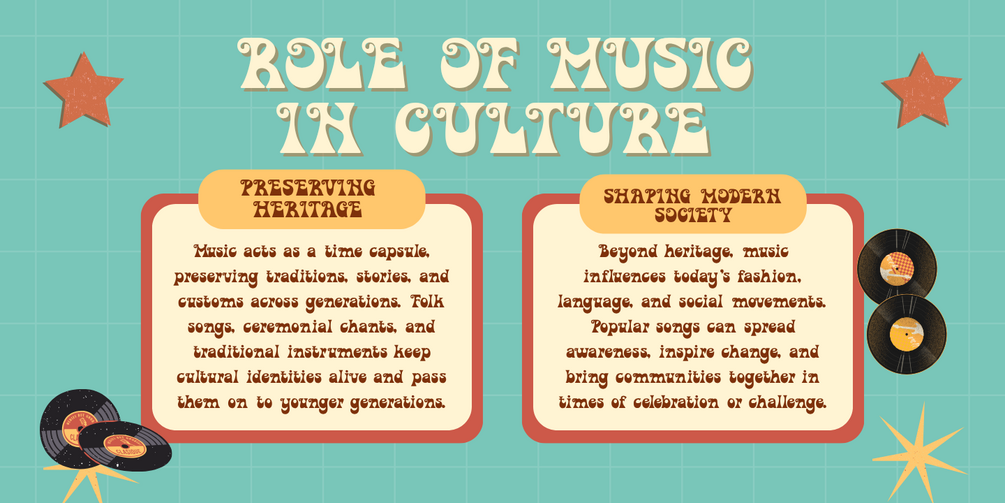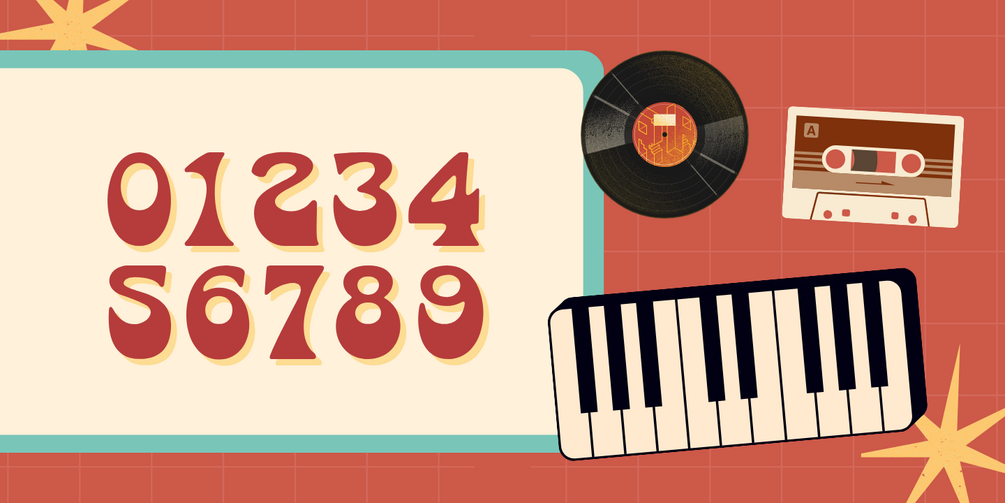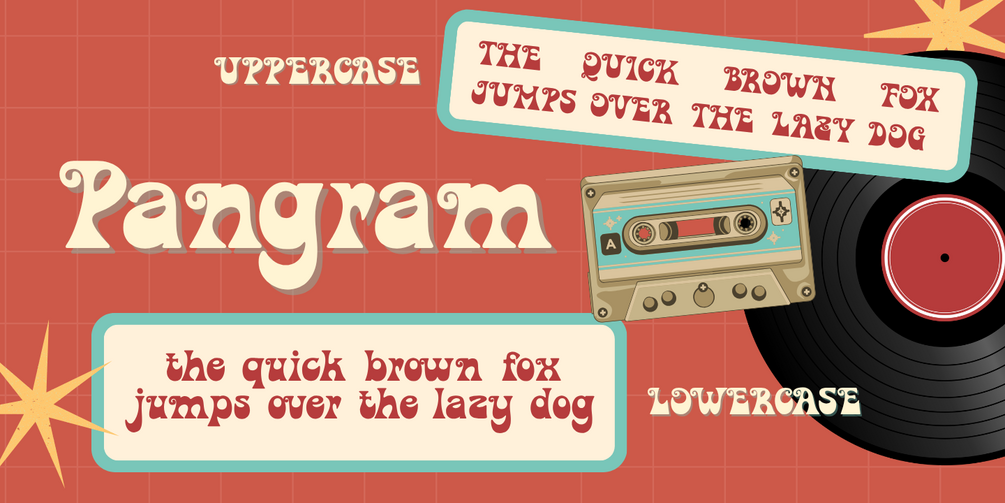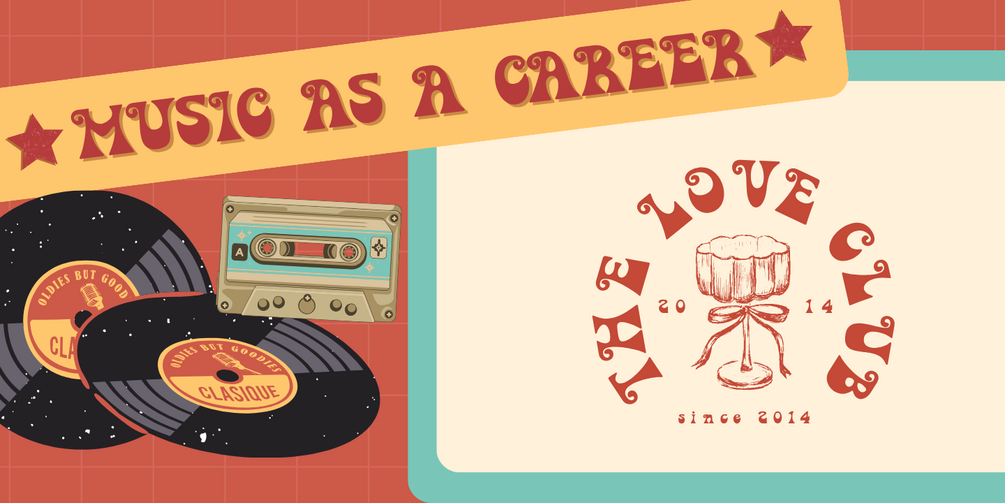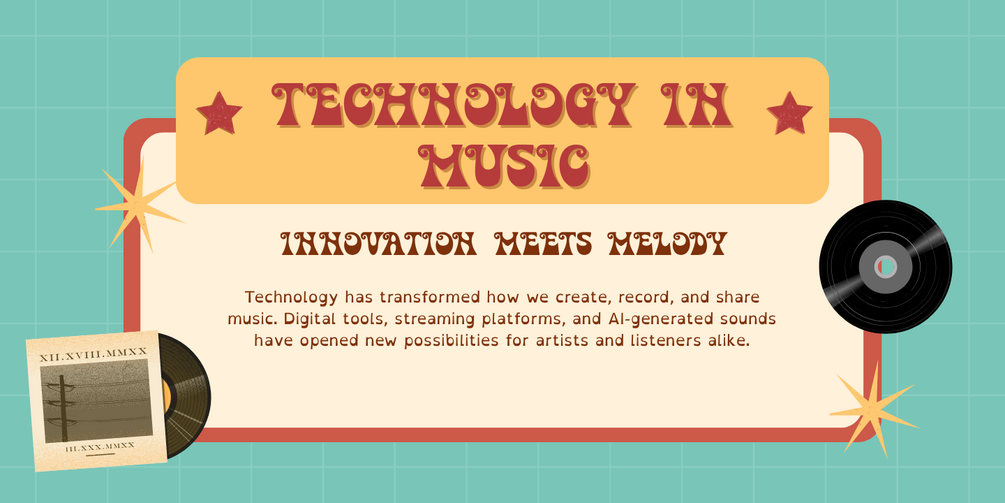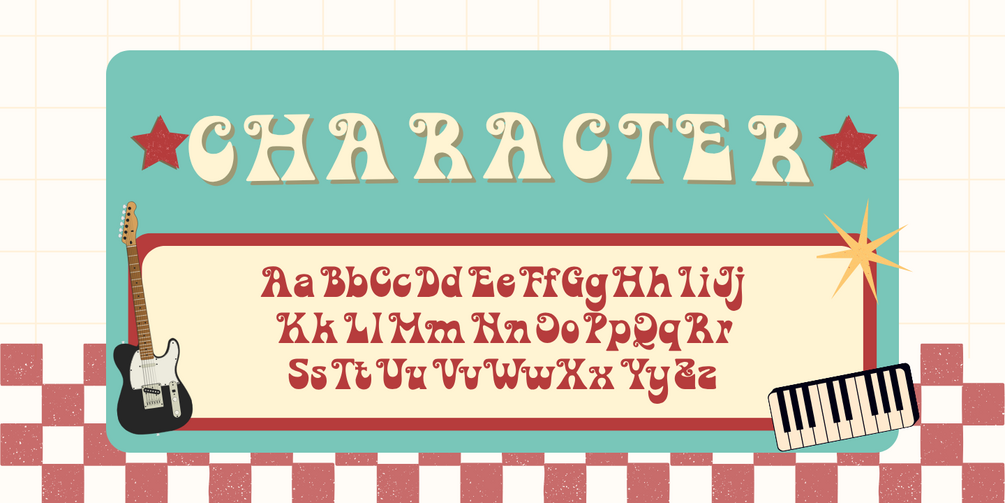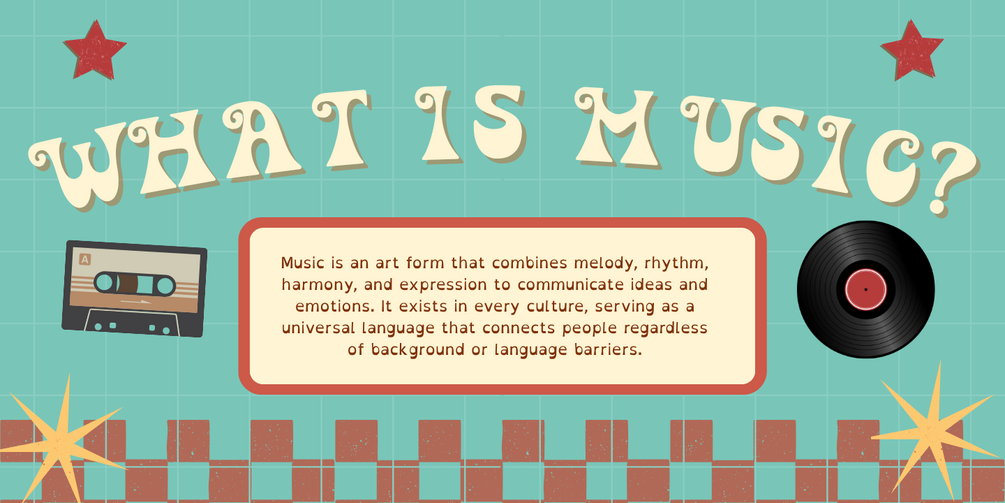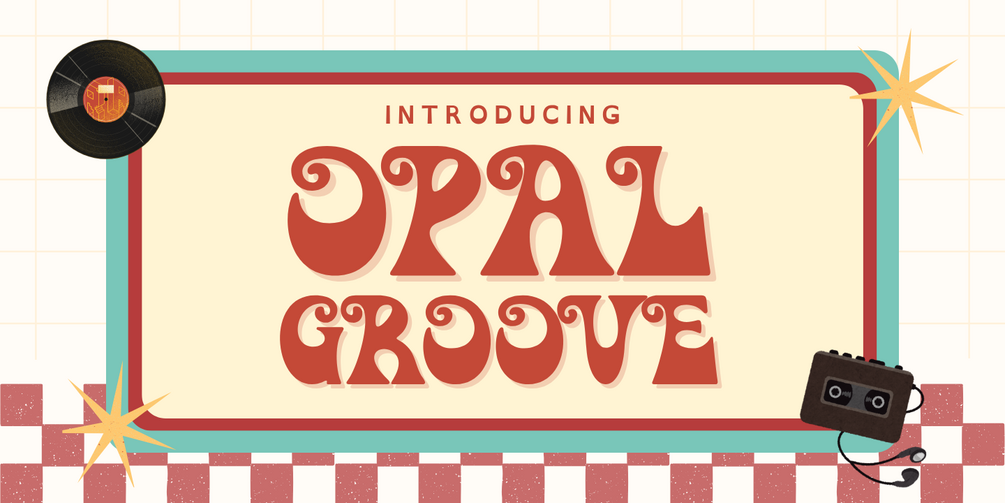
Opal Groove – Playful Retro Display Font
Opal Groove is a retro-funk display typeface full of character and imagination. Its letters are uniquely curved, quirky, and unexpected—bringing a groovy, fantasy, and slightly psychedelic vibe. This font is perfect for designs that aim to stand out, feel fun, and stay memorable.
Perfect for:
- Music & festival posters
- Editorial titles & book covers
- Creative branding & unique packaging
- Retro, psychedelic, or whimsical designs
- Merchandise, stickers, and pop-art illustrations
With expressive shapes and strong visual energy, Opal Groove blends nostalgic charm with modern flair. Use this font to make your design impossible to ignore!